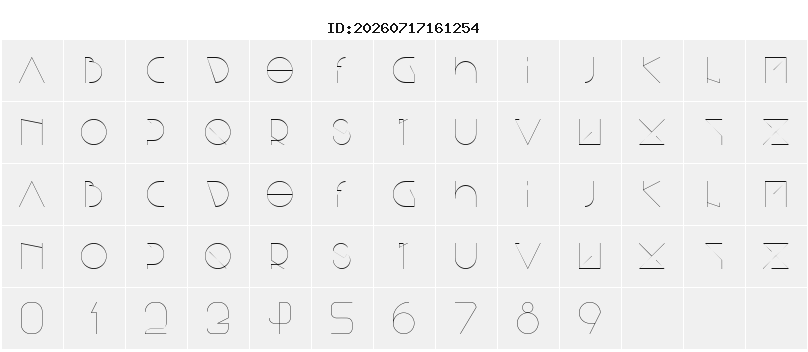
Bisurk Preview
• Font Name: Bisurk
• Designer: Logan Mata
• Manufacturer: Hollow Font Studio
About Bisurk.ttf
Bisurk.ttf is a modern, elegant sans-serif font designed for ultimate readability and visual harmony. Perfect for branding, headlines, web design, and print materials.